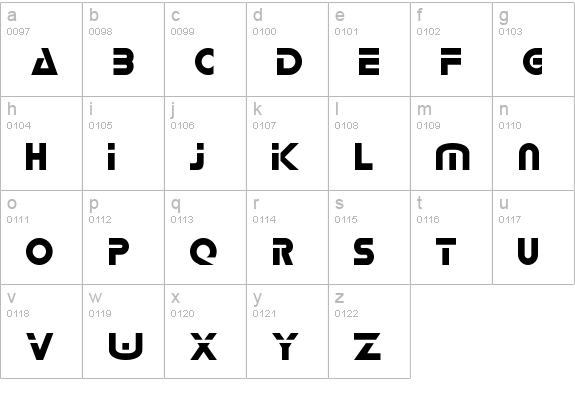
DeltaNormal Font Details
Introducing DeltaNormal font, a versatile and modern typeface that combines sleek lines with a touch of sophistication. This font is perfect for a wide range of design projects, from branding to editorial design. Its clean and legible appearance makes it ideal for both digital and print applications. DeltaNormal font is available for free download at FontsMarket.com, where you can access this stylish font with just a few clicks. With its timeless design and easy readability, DeltaNormal font is sure to elevate your creative projects and bring a touch of elegance to your work. Don't miss out on this opportunity to enhance your designs with the beautiful DeltaNormal font, now available for free at FontsMarket.com. Download it today and see the difference it can make in your next project!